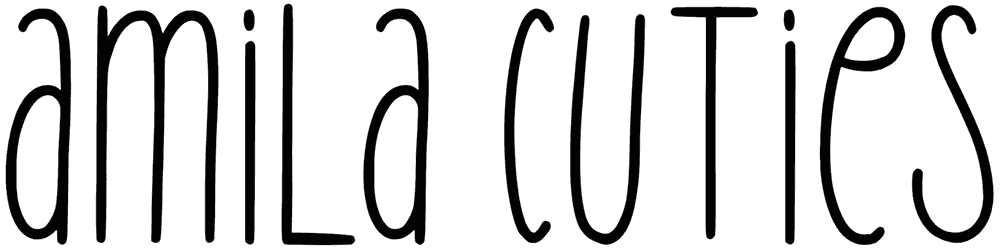
Amila Cuties Font
Amila Cuties has a sense of intimacy that other fonts lack. This playful font suggests that the message is written with care and thought, imbuing even the most mundane communications with a personal touch. If you want to add character and warmth to your next project, try this handwritten font.
Let the childish look of this cute font capture your voice on posters, packaging, and apparel, and watch it bring a smile to the face of anyone who reads it.